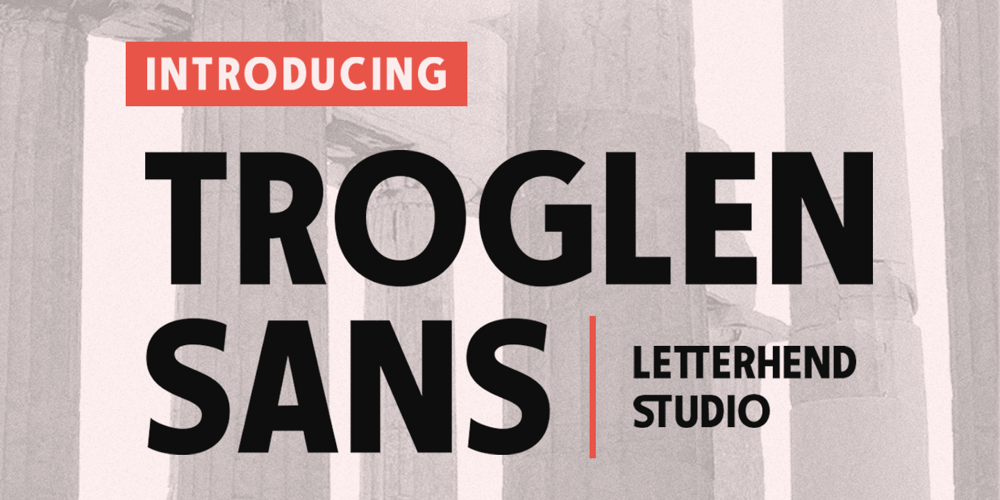
Troglen Font Family was designed by Hendry Juanda and published by Letterhend. Troglen contains 1 styles and family package options. Troglen Sans is a professional, bold sans-serif font that’s perfect for grabbing attention. With a modern, casual feel and thick strokes, it’s perfect for headlines and making a statement that’s both bold and confident.This font perfectly made to be applied especially in logo, and the other various formal forms such as invitations, labels, logos, magazines, books, greeting / wedding cards, packaging, fashion, make up, stationery, novels, labels or any type of advertising purpose.Features : Uppercase & lowercase Numbers and punctuation Alternates & Ligatures Multilingual PUA encoded We highly recommend using a program that supports OpenType features and Glyphs panels like many of Adobe apps and Corel Draw, so you can see and access all Glyph variations.